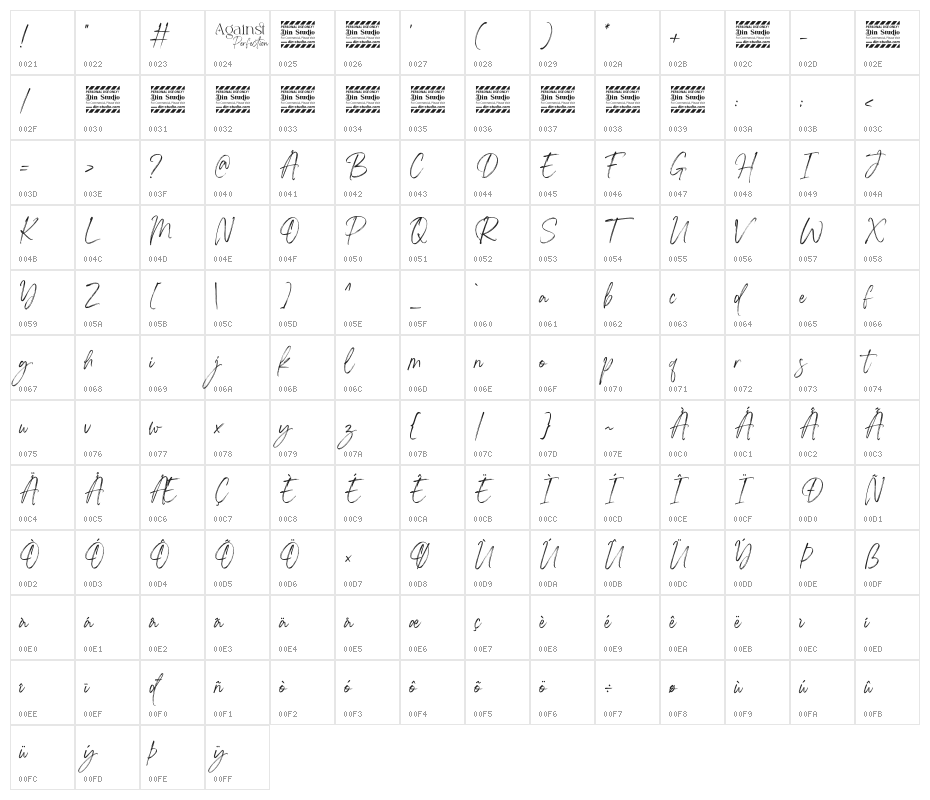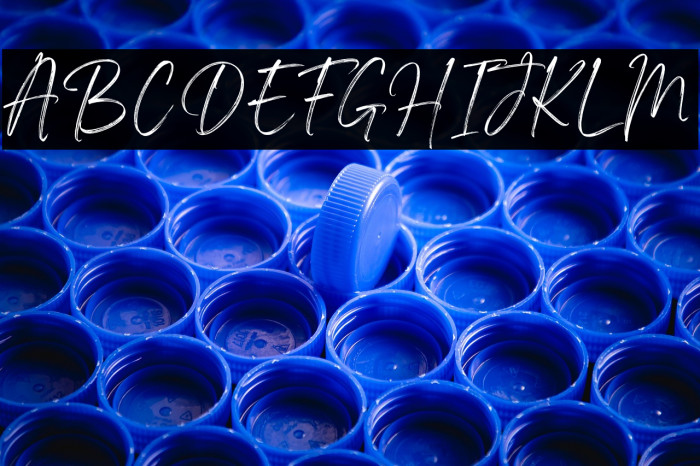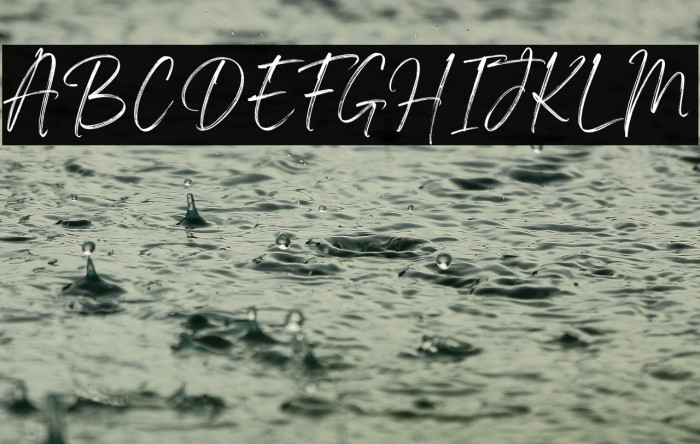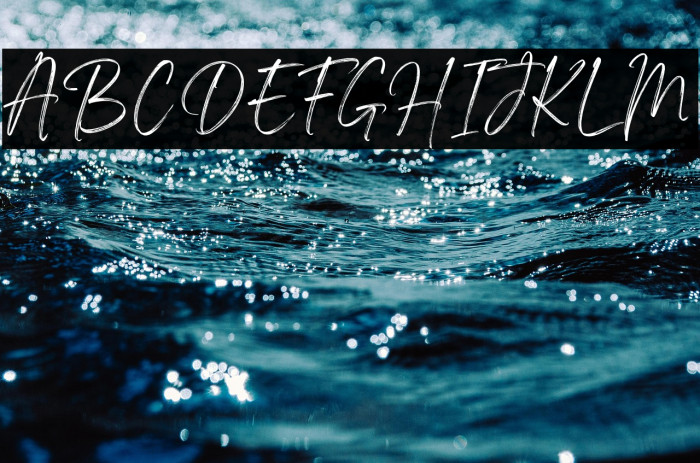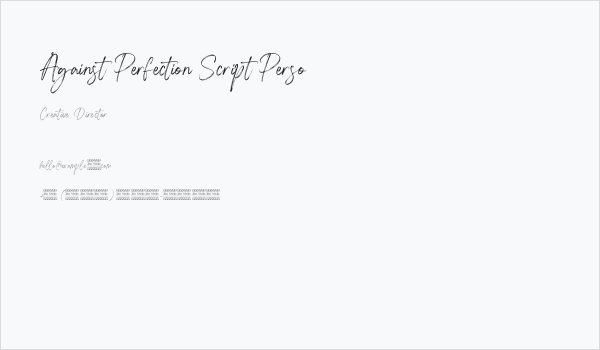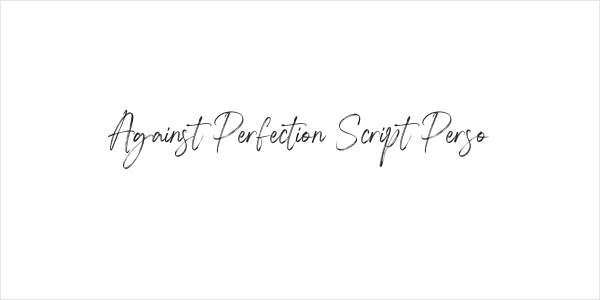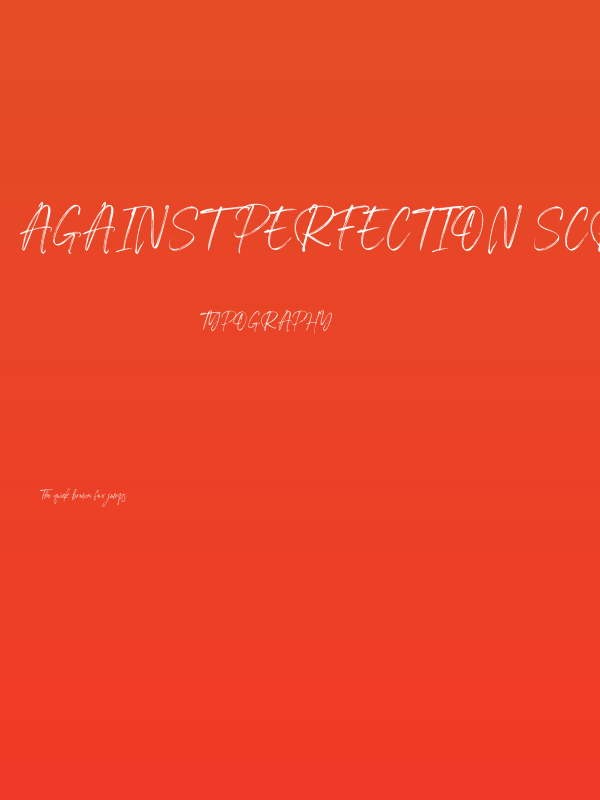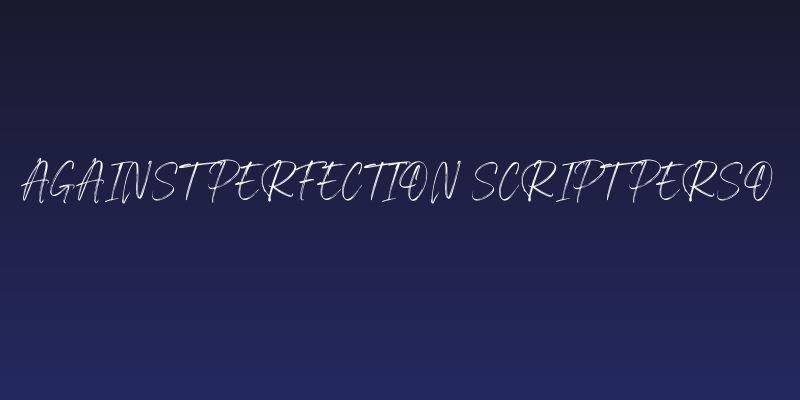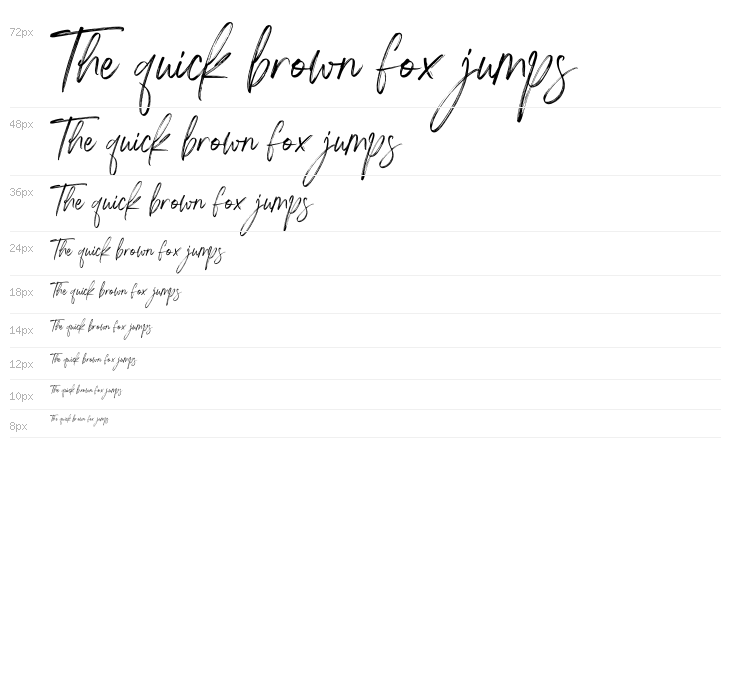
Against Perfection Script Perso Font
Against Perfection Script Perso Description
A flowing, handwritten script font with a casual and artistic style, featuring varying stroke thickness and a natural, imperfect look.
| Use Case | Logos, Headlines, Artistic projects |
| Proposed Projects | Invitations, greeting cards, personal branding. |